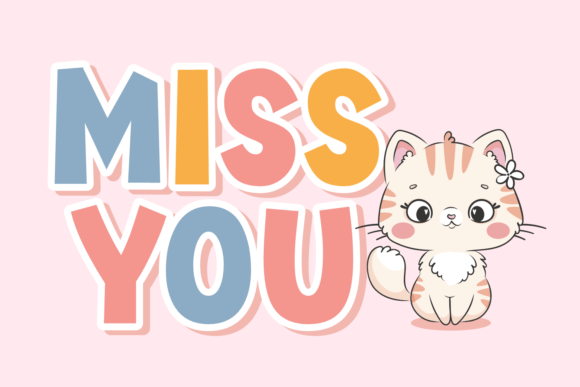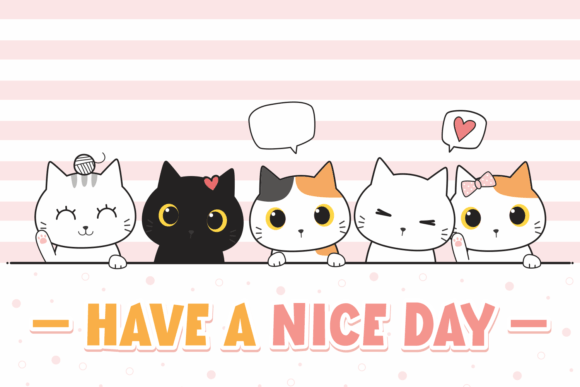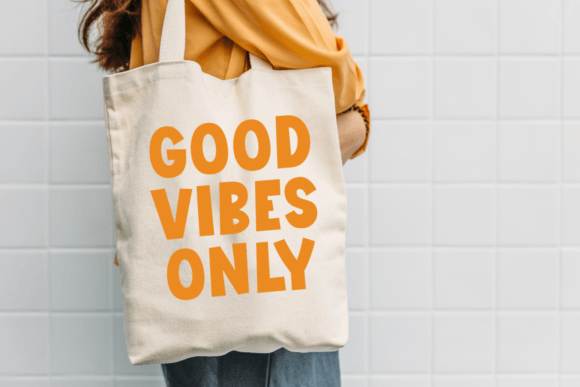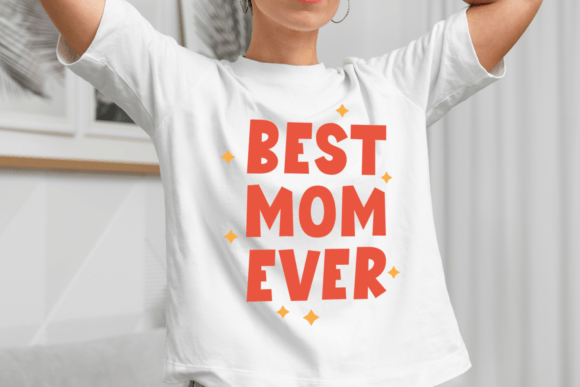
Unleash Your Creativity with Beast Tamer Font
Are you looking for a font that can add a bold and playful touch to your designs? Look no further than the Beast Tamer Font. This energetic and strong display font is perfect for grabbing attention and bringing a fun, adventurous vibe to your projects. In this article, we’ll dive into the features and benefits of Beast Tamer Font, and explore how you can use it to take your designs to the next level.
What is Beast Tamer Font?
Beast Tamer Font is a bold and playful display font that is designed to stand out. Its strong, energetic letters are perfect for making a statement and adding a fun, adventurous vibe to your designs. Whether you’re working on a poster, title, or any other project that needs a big, eye-catching look, Beast Tamer Font is the perfect choice.
Key Features of Beast Tamer Font
- Bold and Playful Design: Beast Tamer Font features a bold and playful design that is sure to grab attention. Its strong, energetic letters are perfect for making a statement and adding a fun, adventurous vibe to your designs.
- High-Quality Vector Graphics: Beast Tamer Font is designed as a high-quality vector graphic, ensuring that it looks great in any size or resolution.
Benefits of Using Beast Tamer Font
So why should you choose Beast Tamer Font for your designs? Here are just a few benefits of using this amazing font:
- Adds a Fun and Adventurous Vibe: Beast Tamer Font is perfect for adding a fun and adventurous vibe to your designs. Its bold and playful design is sure to grab attention and make your projects stand out.
- Perfect for Posters and Titles: Beast Tamer Font is perfect for posters, titles, and any other project that needs a big, eye-catching look. Its strong, energetic letters are sure to make a statement and grab attention.
- Versatile: Beast Tamer Font is a versatile font that can be used in a variety of projects, from posters and titles to logos and branding.
Tips and Tricks for Using Beast Tamer Font
Here are a few tips and tricks for using Beast Tamer Font:
- Use it Sparingly: Beast Tamer Font is a bold and playful font, so it’s best to use it sparingly. Use it for headings and titles, and a more subtle font for body text.
- Experiment with Colors: Beast Tamer Font looks great in a variety of colors, so don’t be afraid to experiment. Try using bright and bold colors to add a fun and adventurous vibe to your designs.
- Combine with Other Fonts: Beast Tamer Font can be combined with other fonts to create a unique and interesting look. Try pairing it with a more subtle font for a contrasting look.
In conclusion, Beast Tamer Font is a bold and playful display font that is perfect for adding a fun and adventurous vibe to your designs. Its strong, energetic letters are sure to grab attention and make your projects stand out. With its high-quality vector graphics, ease of use, and commercial use license, Beast Tamer Font is a great choice for designers and crafters. So why wait? Download Beast Tamer Font today and start creating amazing designs!